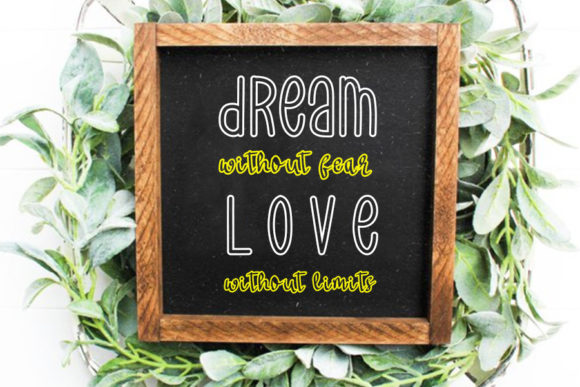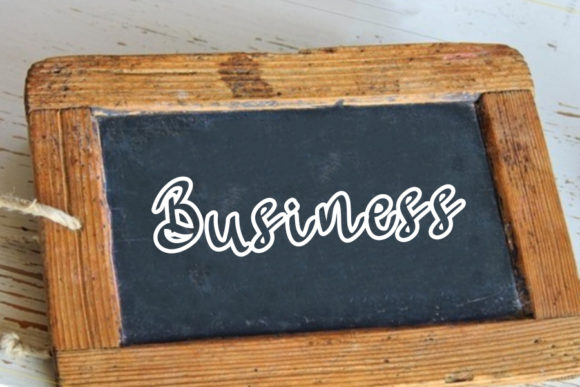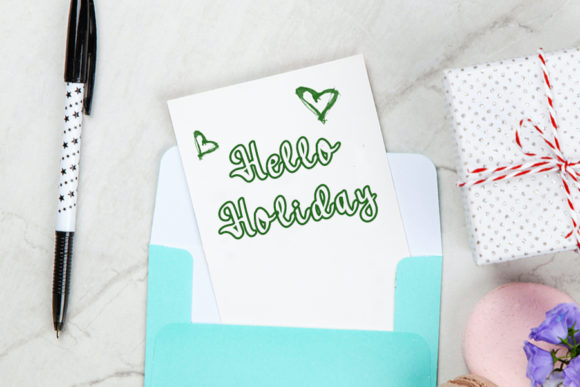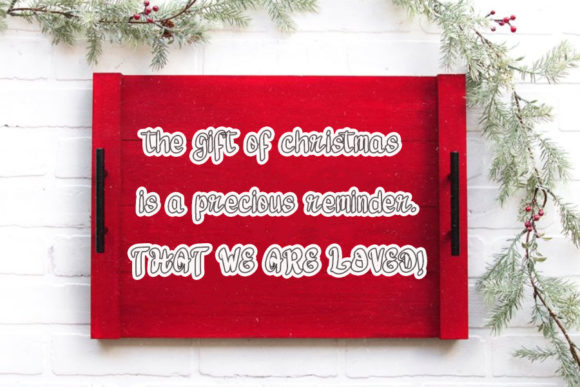
The Ultimate Coffee Break Font Guide: Elevate Your Designs with This Bold Script Font
Ah, the elusive perfect font. You know, that one that makes your design project go from meh to mesmerizing? I’ve been there, done that, and got the t-shirt (which, by the way, was printed in a font that was almost, but not quite, perfect). I was working on a branding project for a trendy coffee shop, and I just couldn’t find a font that captured the right vibe. That was until I stumbled upon the Coffee Break Font. ✨
This bold script font has been a game-changer for me, and I’m excited to share its awesomeness with you. The Coffee Break Font is carefully handcrafted to become a true favorite among designers, crafters, and creative hobbyists. Its casual charm makes it appear wonderfully down-to-earth, readable, and, ultimately, incredibly versatile.
- ✅ Unique and eye-catching: The Coffee Break Font has a distinct personality that sets it apart from other script fonts.
- ✅ Highly readable: Despite its bold and playful nature, this font remains easy to read, even at smaller sizes.
- ✅ Versatile: Use it for branding, packaging, or marketing materials – it adapts seamlessly to various design contexts.
- ✅ OpenType features: This font comes with a range of OpenType features, including glyphs and stylistic alternates, to give you even more creative control.
While the Coffee Break Font is an amazing addition to any design project, there are a few things to keep in mind: 🤔
- ⚠️ Limited use in formal contexts: Due to its playful nature, this font might not be the best fit for very formal or corporate designs.
- ⚠️ Requires attention to spacing: As with any script font, make sure to adjust the tracking and kerning to ensure optimal readability.
The Story Behind Coffee Break Font: Designer Inspiration
Legend has it that the creator of the Coffee Break Font was a freelance designer with a passion for coffee (who wouldn’t be?). During a particularly long night of designing, they cracked open a fresh cup of joe and began experimenting with bold, expressive letterforms. The result was a font that embodied the warmth and energy of a cozy coffee break. Whether or not that’s entirely true, one thing’s for sure: this font is a true gem.
Q: What makes Coffee Break Font so versatile?
A: Its unique blend of boldness and readability makes it suitable for a wide range of design applications.
Q: Does Coffee Break Font come with OpenType features?
A: Yes, this font includes a range of OpenType features, such as glyphs and stylistic alternates, to give you more creative control.